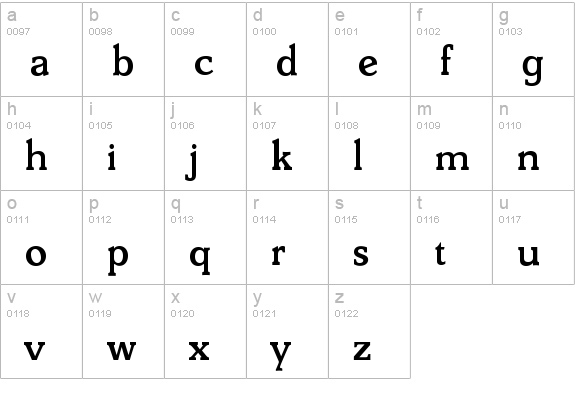
Derringer-Medium is a balanced, medium-weight variant in the Derringer typeface family \xE2\x80\x94 well suited to sub-headlines, navigation, and balanced editorial work.
Derringer-Medium is a modern and versatile font that exudes sophistication and elegance. With its clean lines and stylish appearance, this typeface is perfect for a wide range of design projects, from branding to editorial design. The Derringer-Medium font strikes the perfect balance between classic and contemporary, making it a timeless choice for any creative endeavor. The best part? Derringer-Medium is available for free download at FontsMarket.com. This means you can access this high-quality font without any cost, making it an excellent choice for designers and creatives looking to elevate their work without breaking the bank. Don't miss out on the opportunity to enhance your projects with the sleek and stylish Derringer-Medium font - download it for free today!